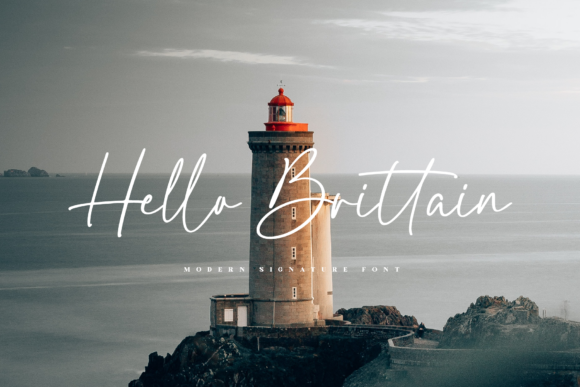
Get ready to turn heads with "Hello Brittain," the script font that exudes elegance and charm! Each letter dances across the page with a delicate grace, inviting you to create captivating designs that will leave a lasting impression.
Step into a world of sophistication with "Hello Brittain." Crafted by the masterful hands at Typobia, this font boasts a slim, graceful structure that adds a touch of refinement to any project. Whether you're designing wedding invitations that whisper romance or crafting social media posts that demand attention, "Hello Brittain" is the perfect choice.
But wait, there's more! "Hello Brittain" is not just a pretty face; it's a versatile performer that adapts effortlessly to any creative endeavor. Unleash your imagination and use it to create eye-catching stationary art, design logos that stand out from the crowd, or add a touch of elegance to your digital creations.
So, why settle for ordinary fonts when you can elevate your designs with the captivating beauty of "Hello Brittain"? Let its graceful curves and refined style inspire you to create masterpieces that will captivate your audience and leave them yearning for more.